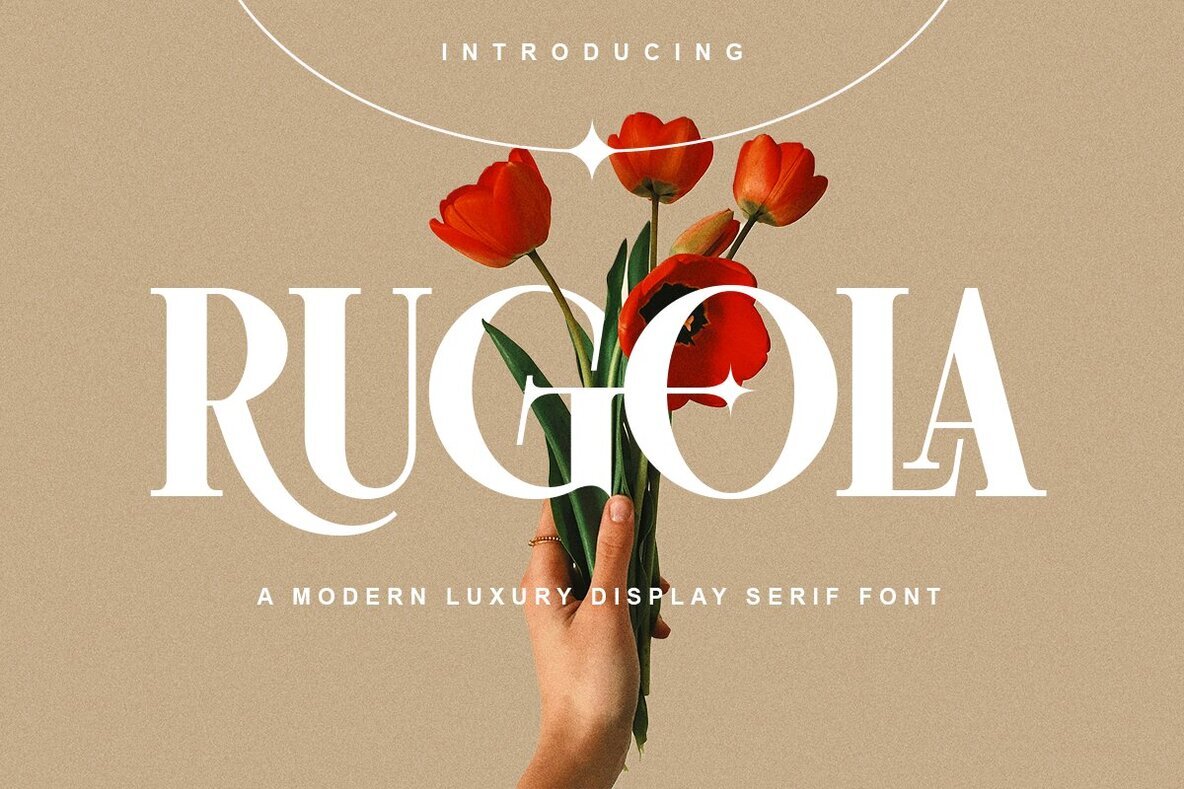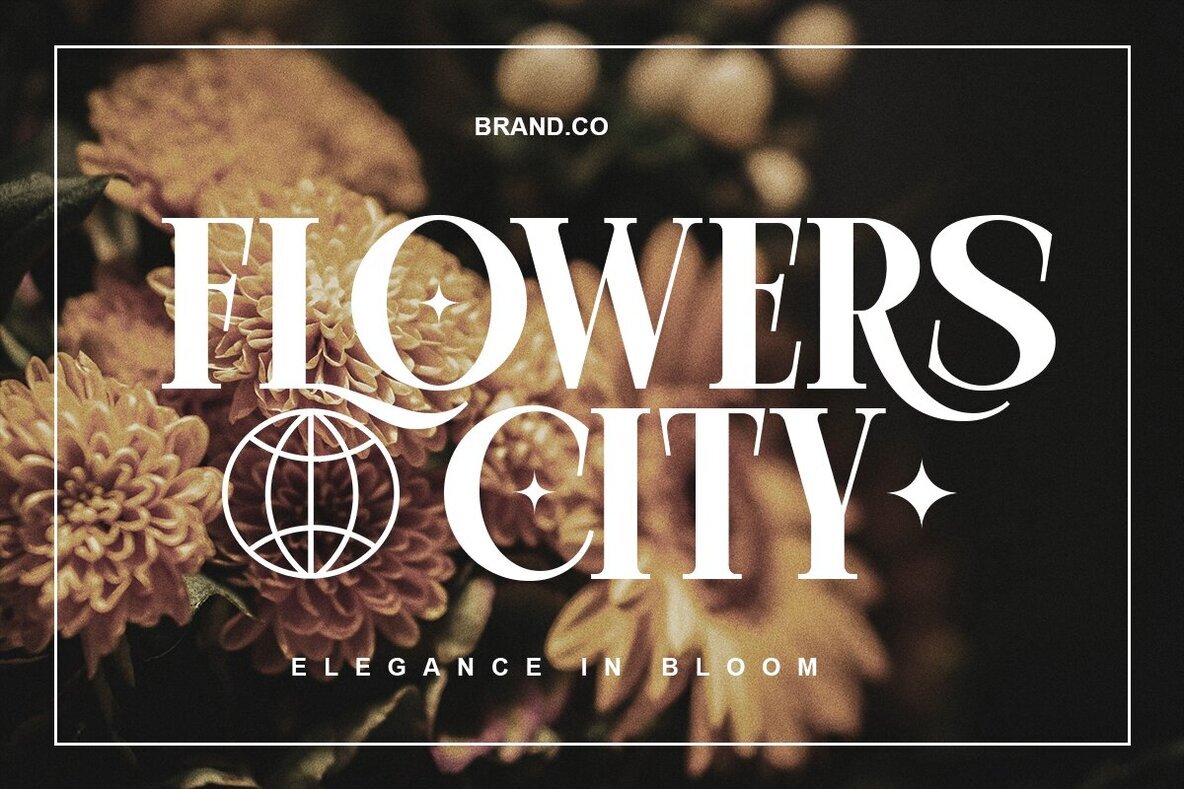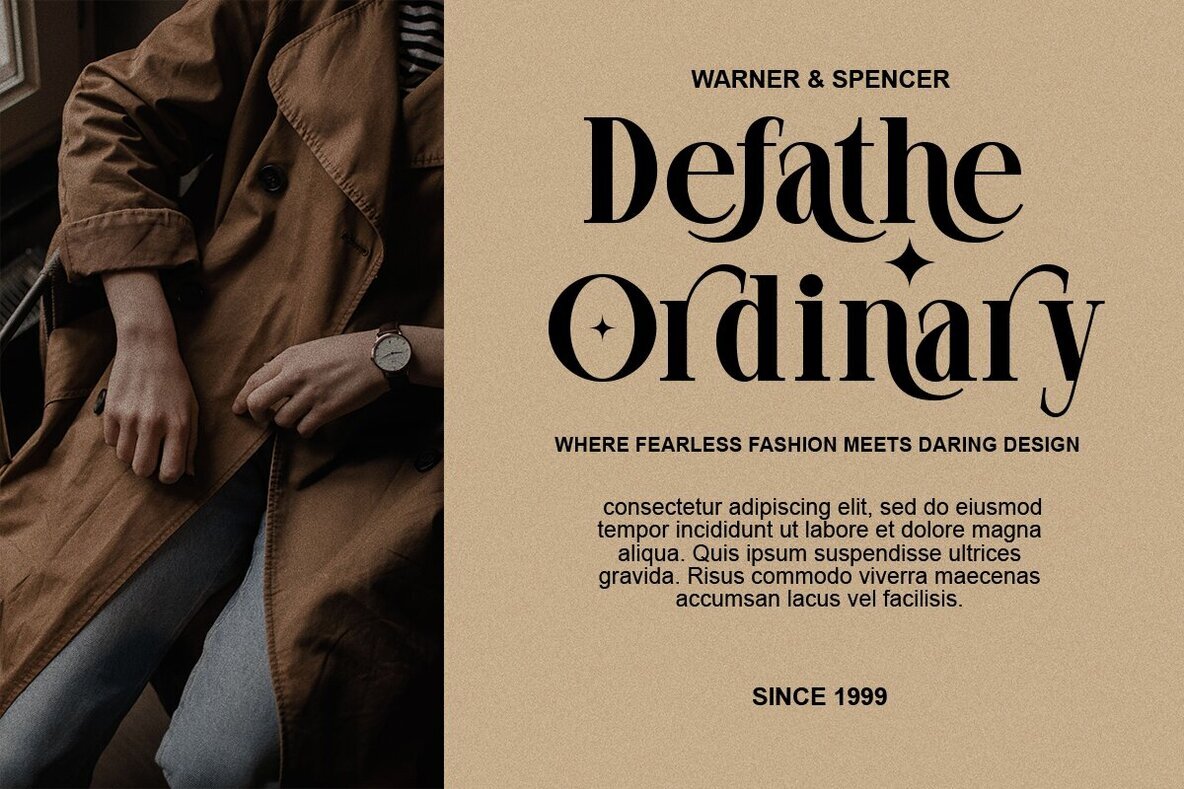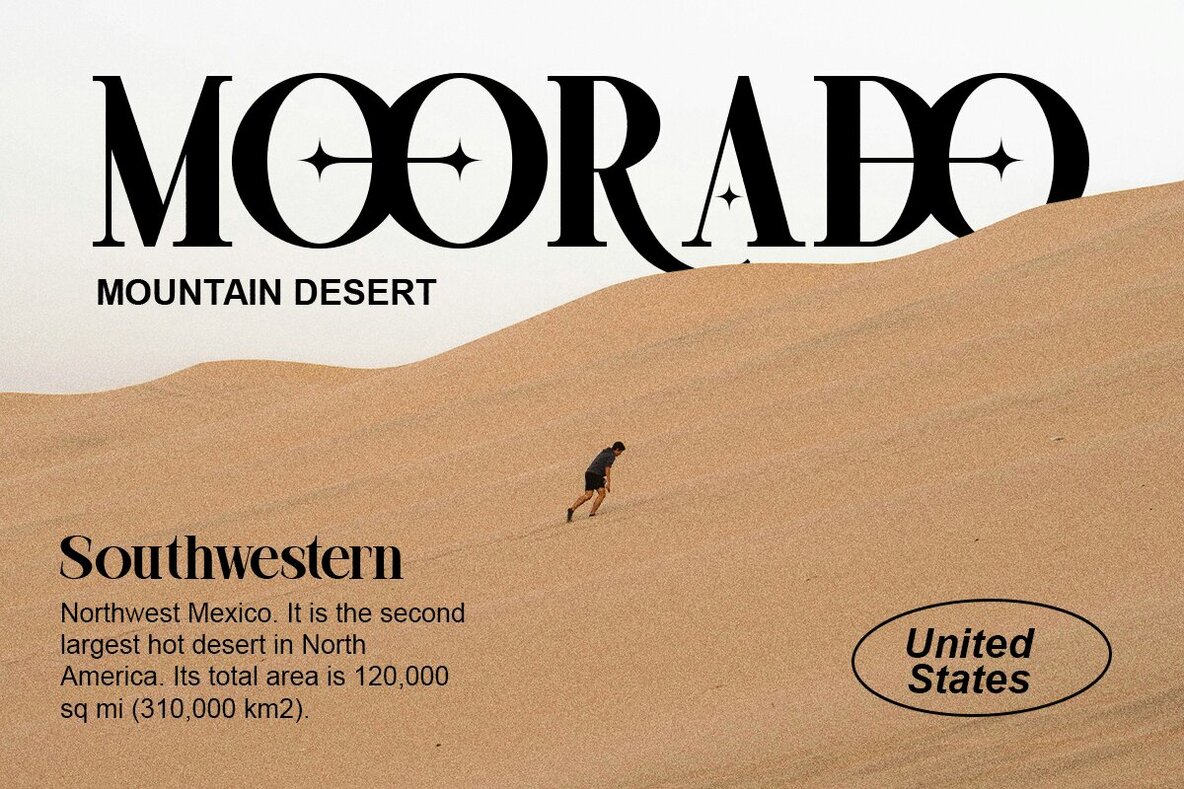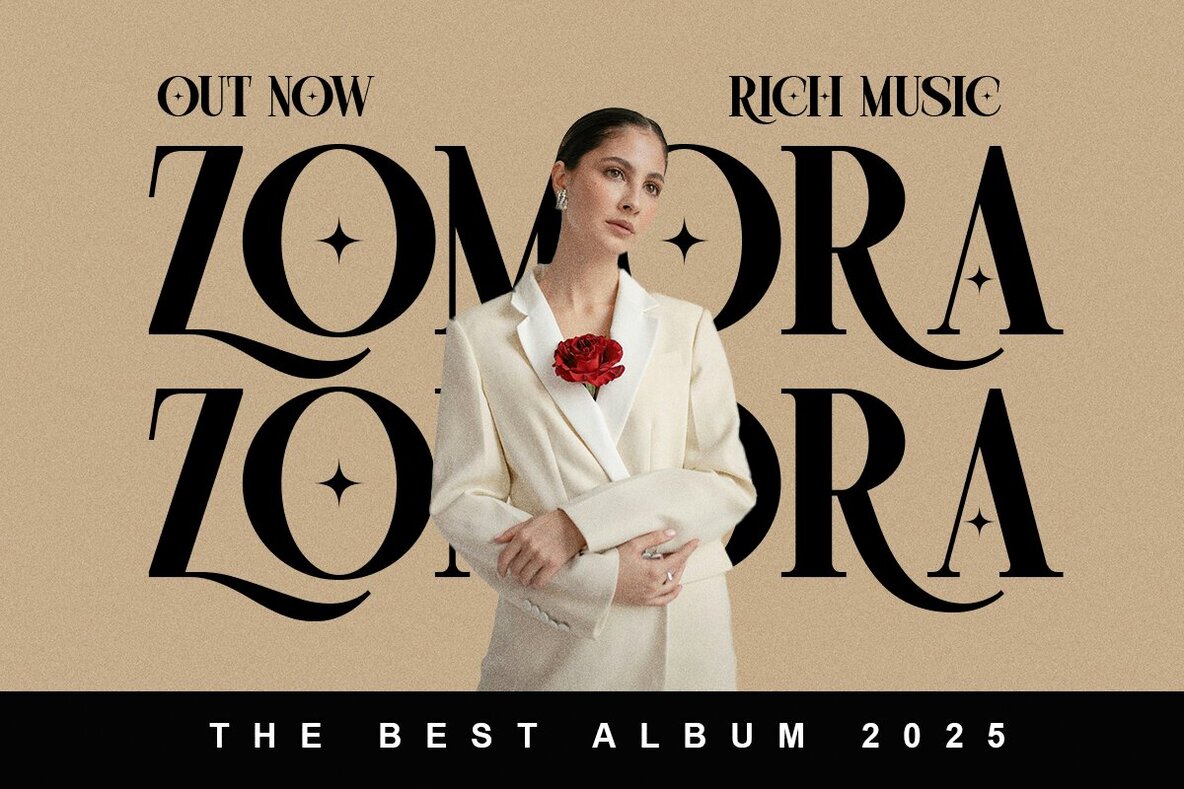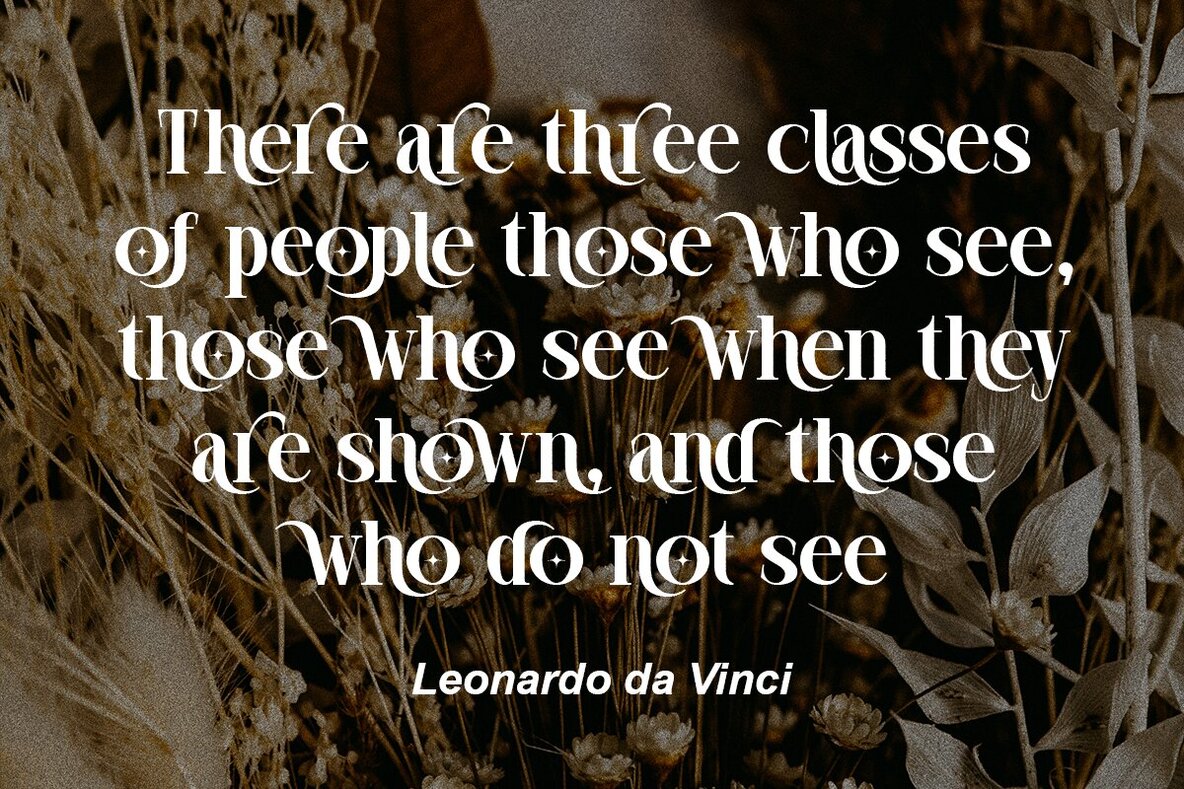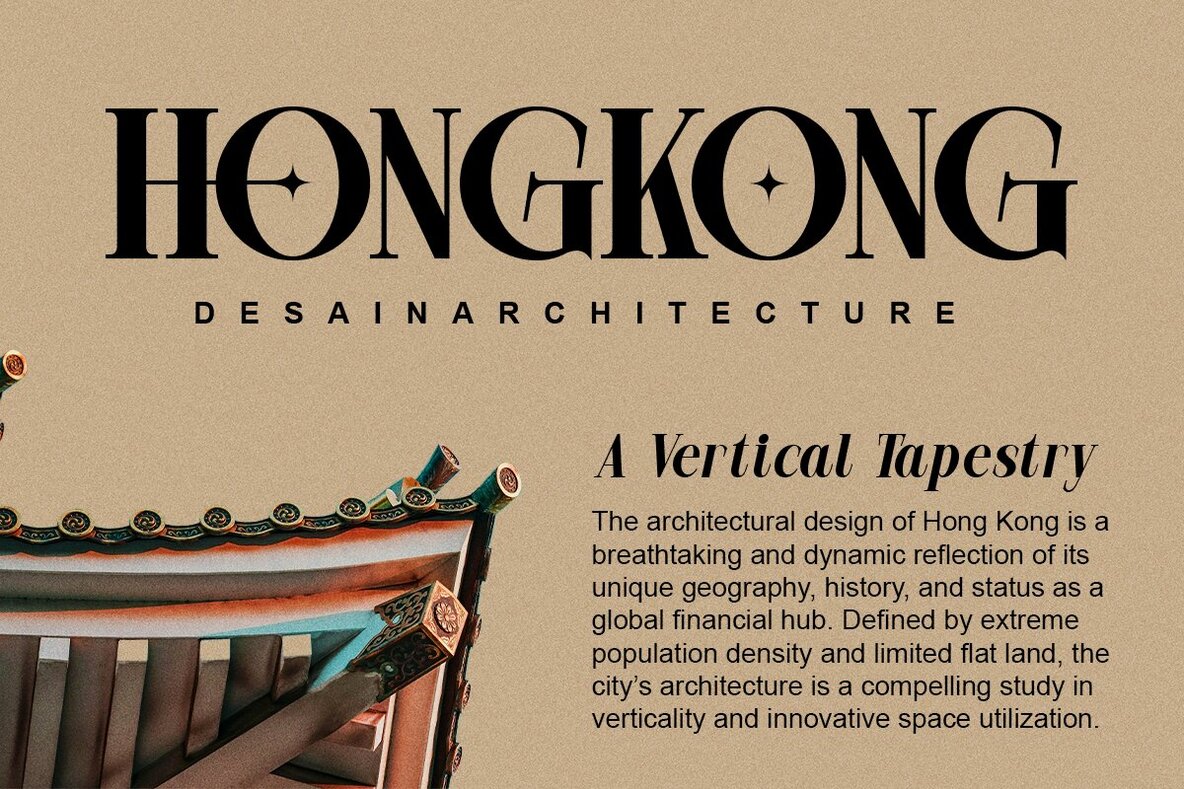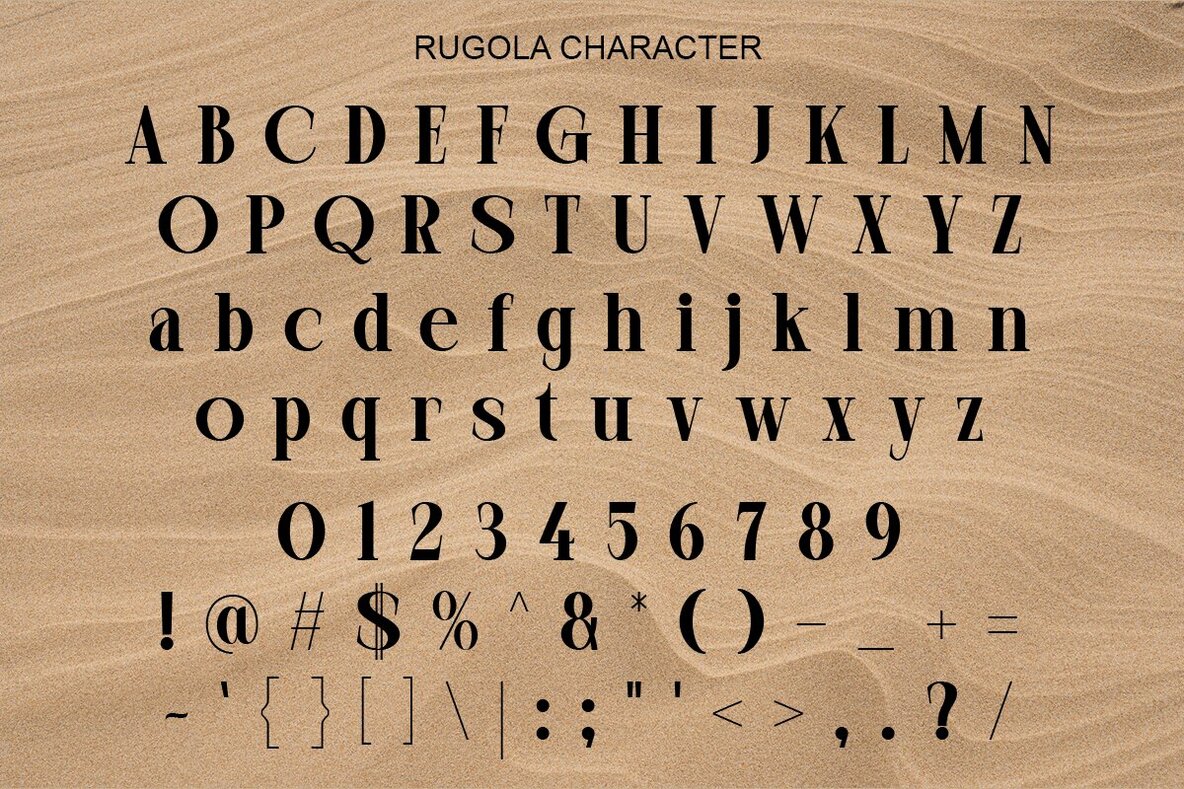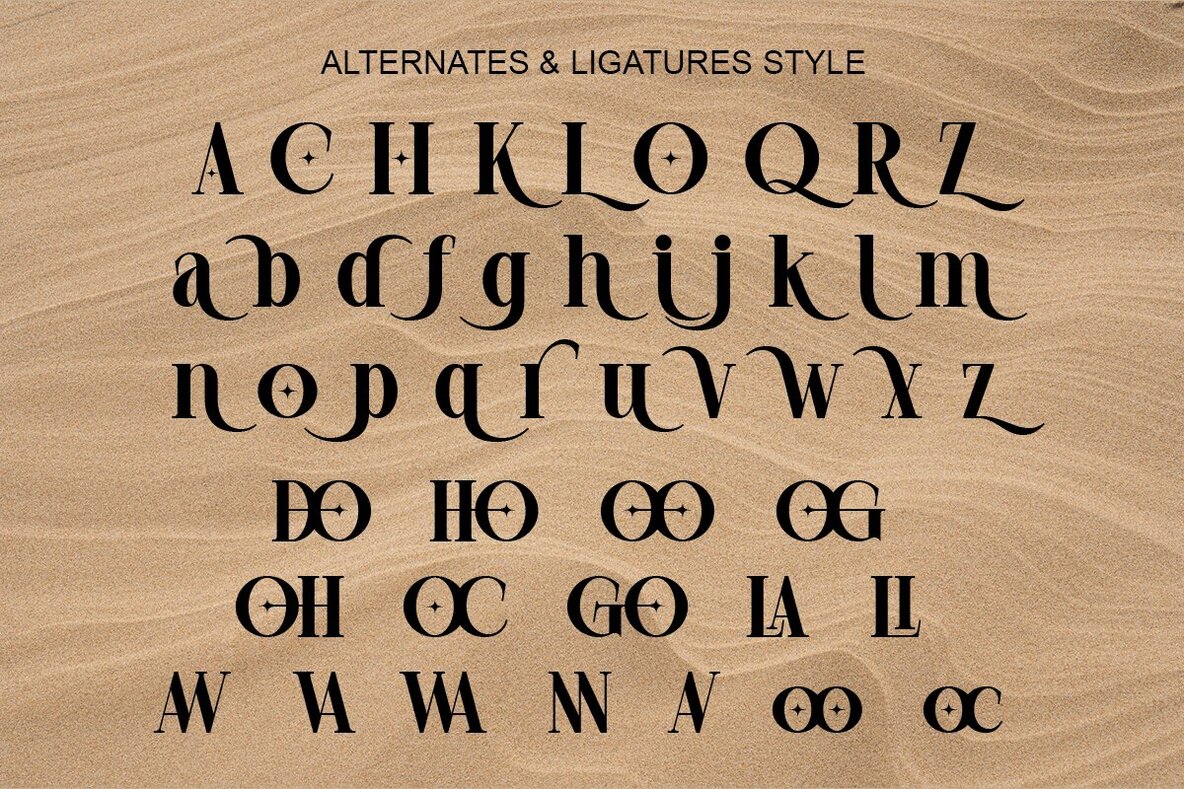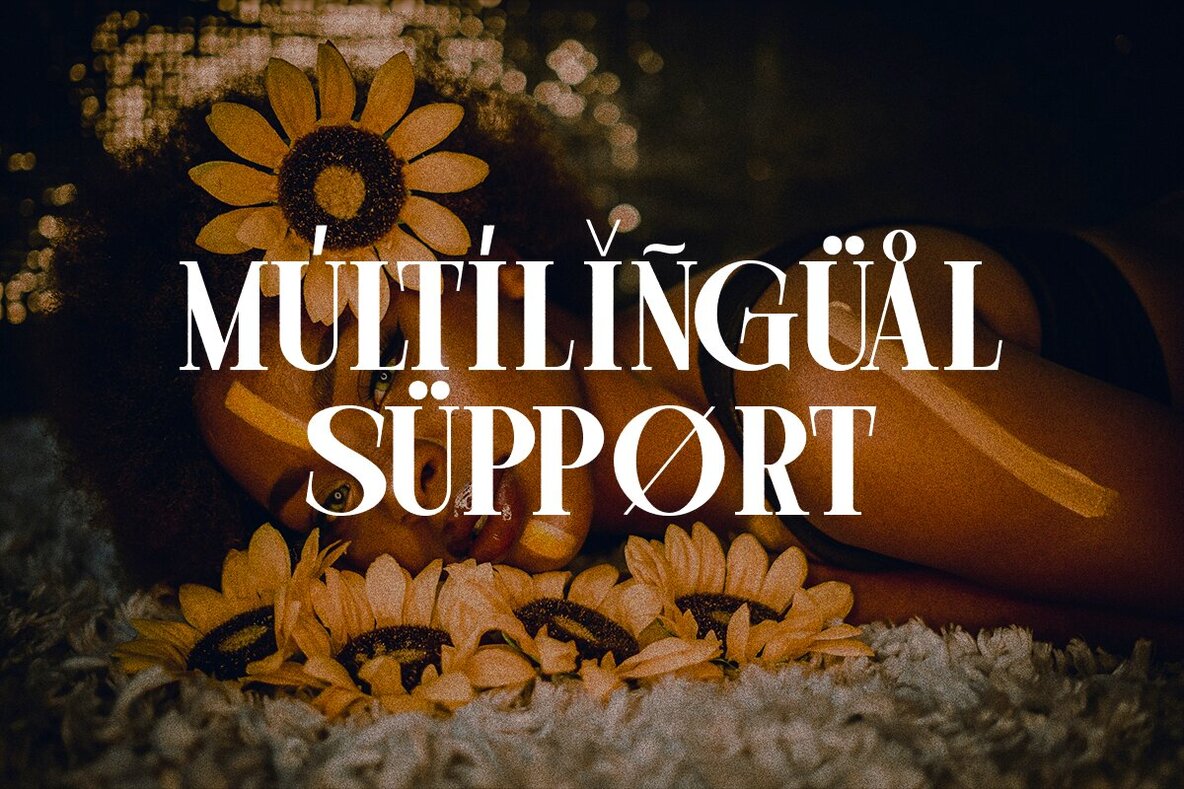
Rugola Font
Rugola: Luxurious Serif Font for Sophisticated Design
The Rugola font is an embodiment of modern luxury in serif typography. Crafted for designers who wish to impart their work with an air of sophistication and elegance, Rugola adapts seamlessly to a range of creative projects.
Perfect for crafting distinctive logos, designing captivating packaging, or creating stunning book covers, Rugola elevates your design endeavors effortlessly. If you seek a typeface that merges style with elegance, consider Rugola as your choice for making a striking impact.
Features:
• Rugola Standard
• Rugola Italic
• Ligature Characters
• Stylish Alternates
• Multilingual Support